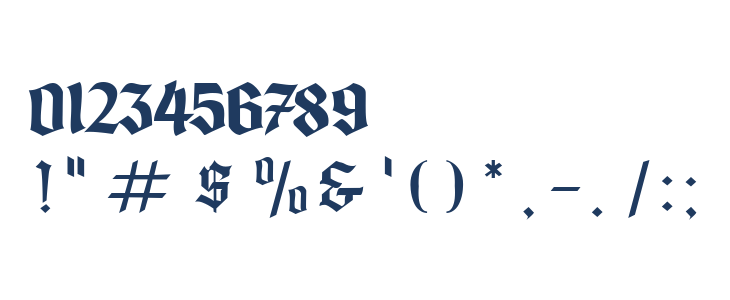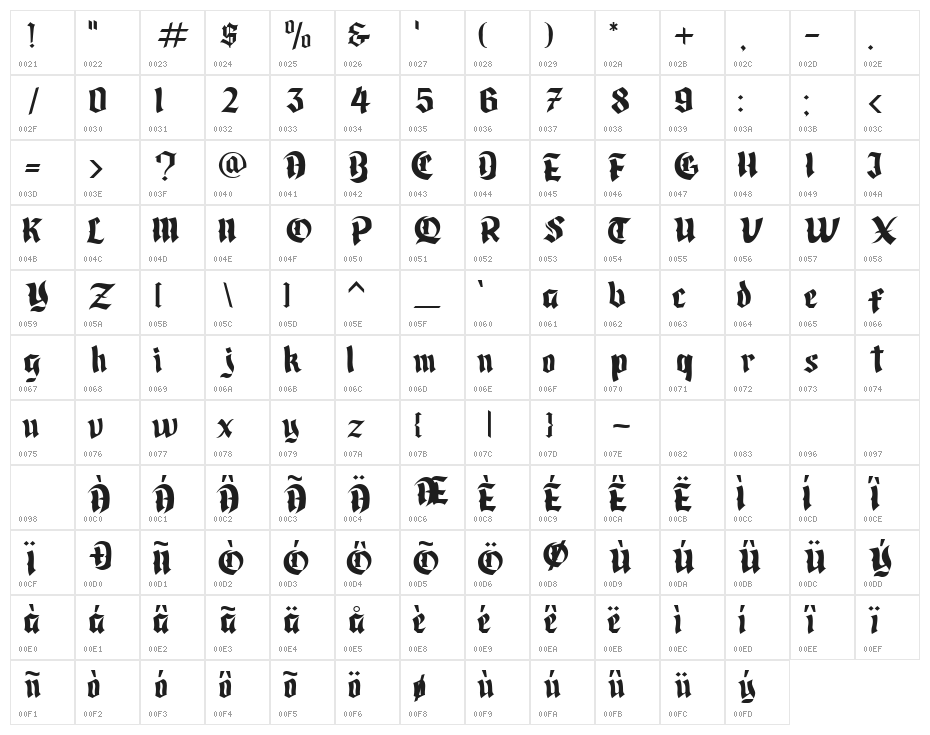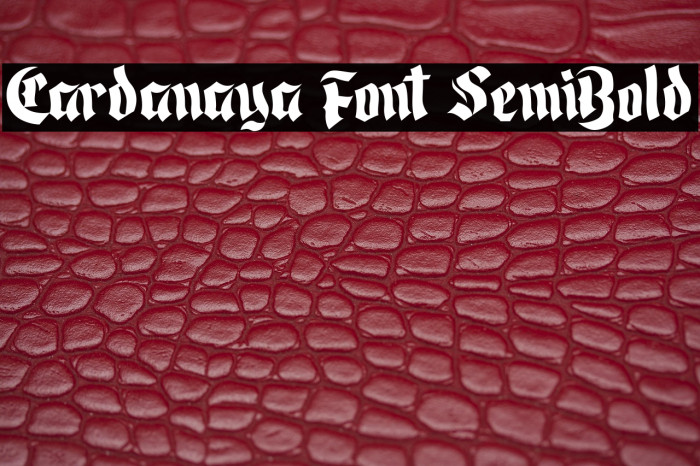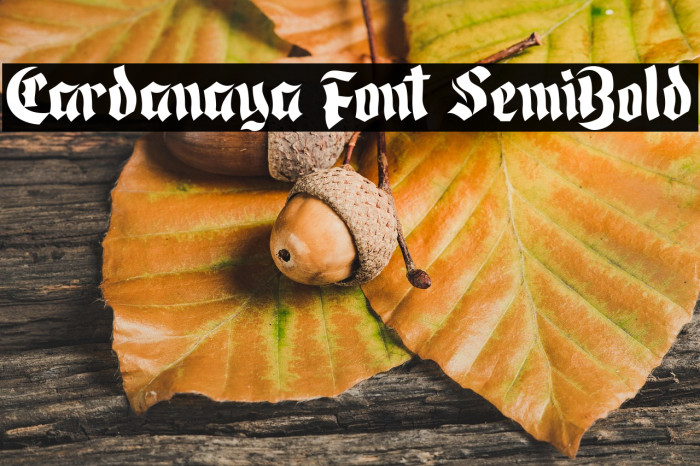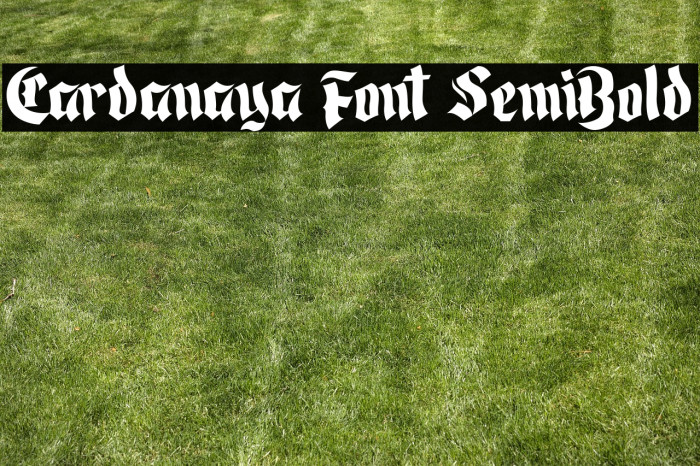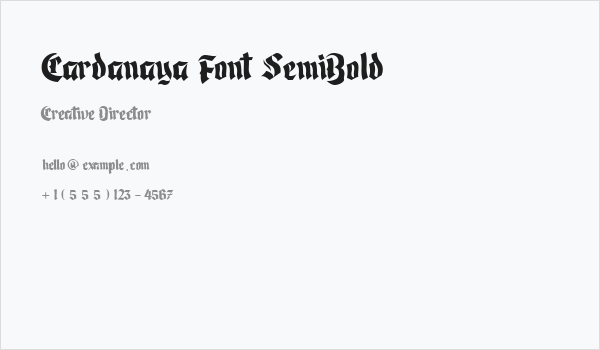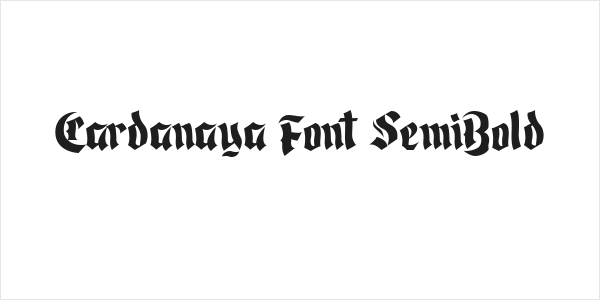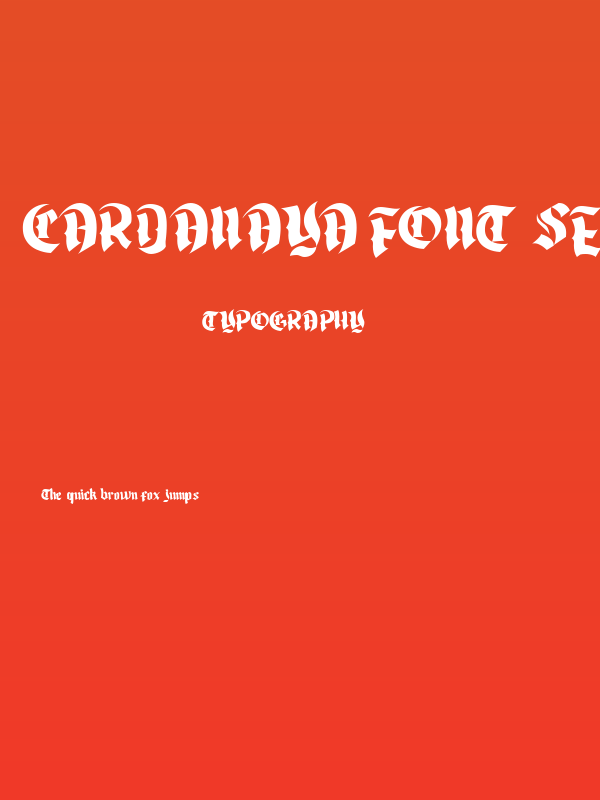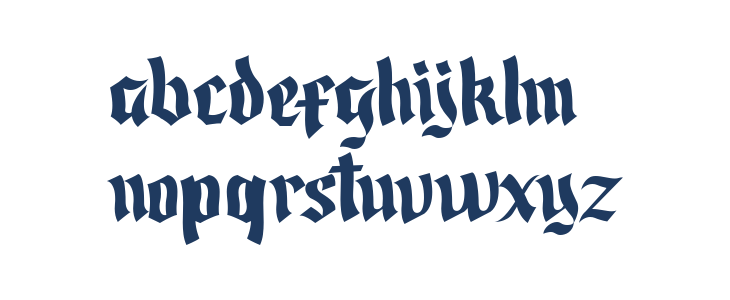
Cardanaya Font SemiBold Font
Cardanaya Font SemiBold Description
This font features a bold and striking blackletter style, characterized by its sharp, angular lines and dramatic flourishes. The uppercase letters exhibit a strong presence with intricate details, while the lowercase letters maintain a consistent style that complements the overall aesthetic. The numerals are equally bold, ensuring they stand out in any design. Special characters are designed with the same attention to detail, making them seamlessly integrate with the rest of the typeface. This font is perfect for projects that require a historical or gothic touch, offering a sense of tradition and elegance.